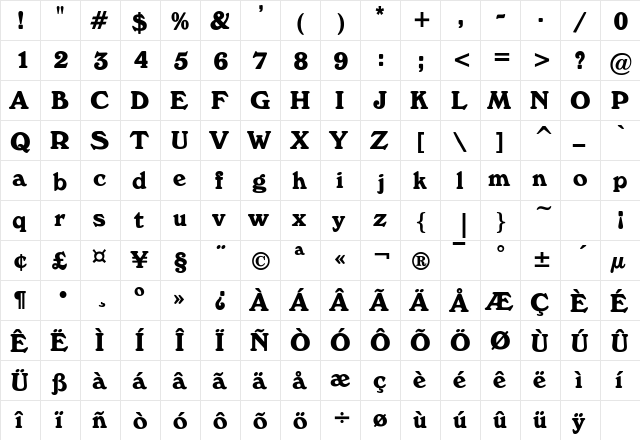
Buckingham Bold
Design Context for Buckingham Typeface
Buckingham offers clean, dependable letterforms without strong stylistic allegiance, making it a practical choice for designers who need flexibility. Its bold stroke weight gives it real presence on the page.
Pro Tip: Use Buckingham in both headline and body roles to test its range before committing to a single application.